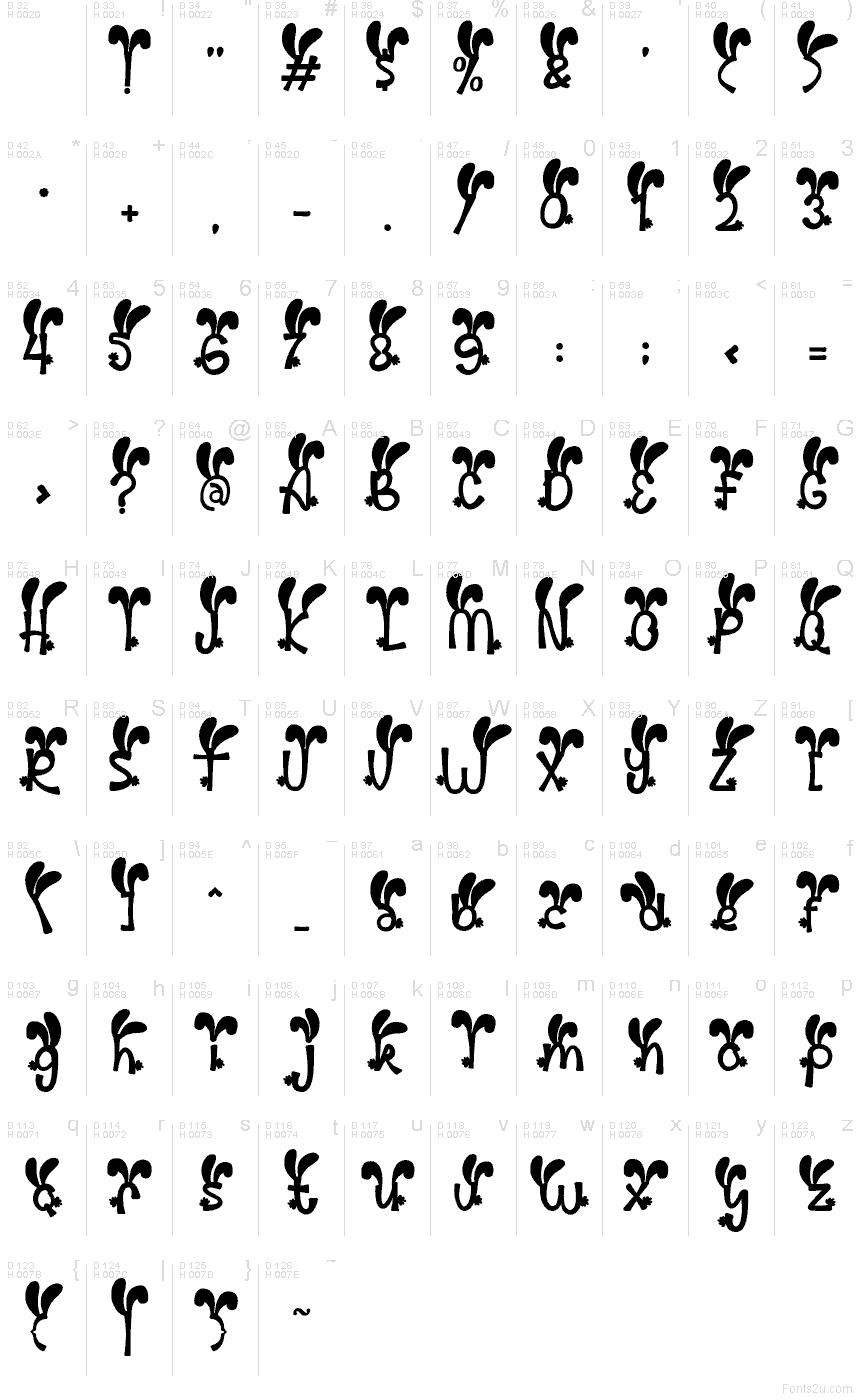
Palm Sunday Bunny
Palm Sunday Bunny font by Putracetol Studio is a free Easter display font with rounded bunny-inspired shapes, long ear-like curves, and small paw-like flourishes at the ends. The forms feel handmade and a little whimsical, with each glyph keeping the same soft, festive motif throughout.
Palm Sunday Bunny works well for Easter invitations, spring event posters, holiday cards, nursery labels, craft packaging, and seasonal social graphics. Its playful rabbit details make it a natural fit when you want a decorative title or accent that carries the holiday theme without needing extra artwork.